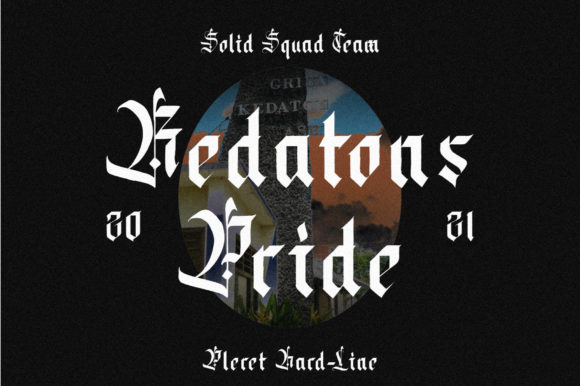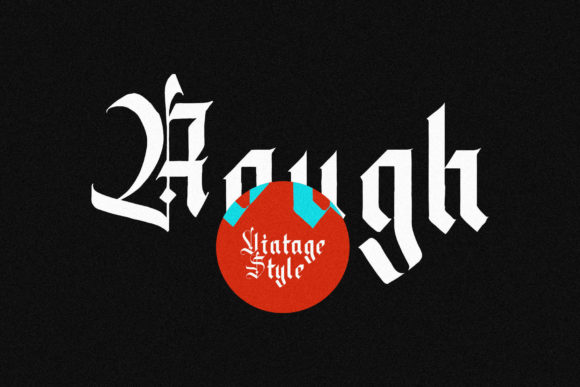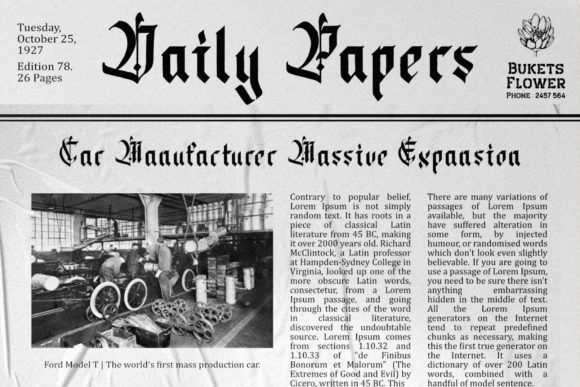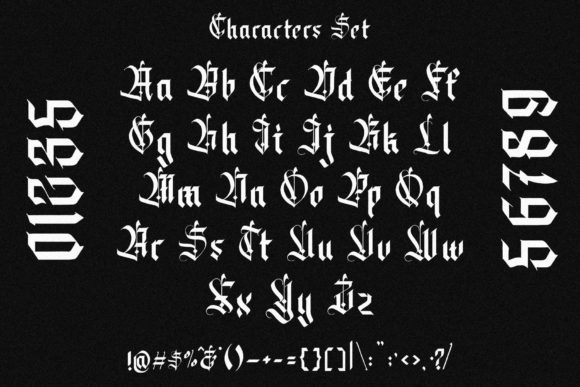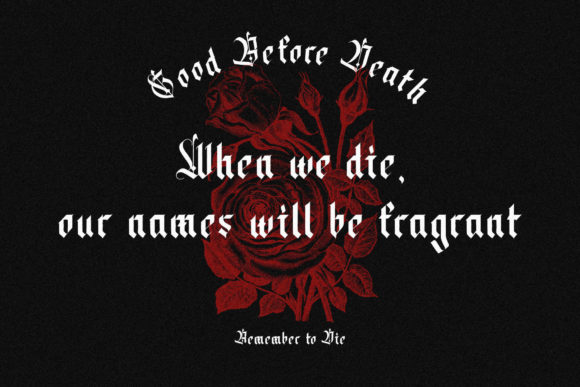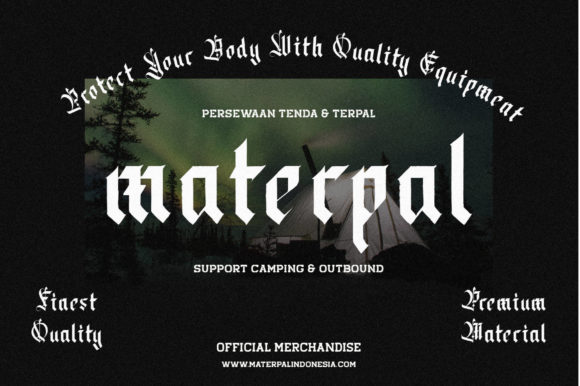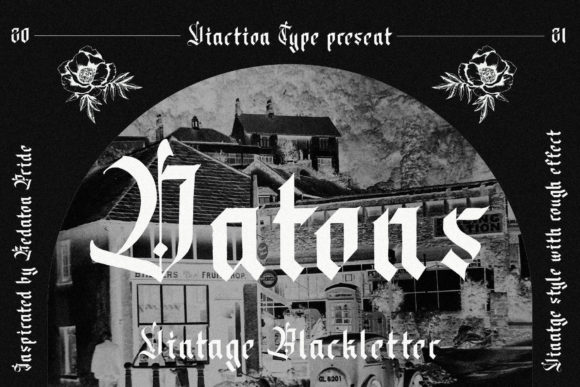
Introducing Datons Font: The Ultimate Victorian Blackletter Font for Designers and Crafters
Are you tired of using the same old fonts for your designs? Do you want to add a touch of elegance and sophistication to your projects? Look no further than Datons Font, a cool, bold, and classy Victorian blackletter font that’s perfect for a wide range of design applications.
What is Datons Font?
Datons Font is a stunning Victorian blackletter font that’s inspired by the ornate and intricate designs of the Victorian era. With its bold and dramatic lines, Datons Font is sure to make a statement in any design project. Whether you’re looking to create a logo, branding materials, invitations, stationery, wedding designs, or social media posts, Datons Font is the perfect choice.
Key Features of Datons Font
- Cool and Bold Design: Datons Font features a unique and striking design that’s sure to grab attention. Its bold lines and intricate details make it perfect for creating dramatic and eye-catching designs.
- Victorian Inspiration: Datons Font is inspired by the ornate and elegant designs of the Victorian era, making it perfect for designers and crafters who love vintage and classic styles.
- Classy and Elegant: Datons Font has a sophisticated and refined look that’s perfect for high-end designs, such as luxury branding, wedding designs, and formal invitations.
- Versatile: Datons Font can be used for a wide range of design applications, including logos, branding, invitations, stationery, wedding designs, social media posts, and more.
Why Choose Datons Font?
With so many fonts available, why choose Datons Font? Here are just a few reasons why designers and crafters love Datons Font:
- Unique and Distinctive: Datons Font is a one-of-a-kind font that’s sure to make your designs stand out from the crowd.
- Elegant and Sophisticated: Datons Font has a refined and elegant look that’s perfect for high-end designs.
- High-Quality: Datons Font is a high-quality font that’s designed to produce crisp and clear results, even at small sizes.
How to Use Datons Font
- Use it for Headings and Titles: Datons Font is perfect for headings and titles, where its bold and dramatic lines can really make an impact.
- Experiment with Different Sizes and Colors: Datons Font looks great at a wide range of sizes and colors, so don’t be afraid to experiment and find the perfect combination for your design.
- Pair it with Other Fonts: Datons Font can be paired with other fonts to create a unique and interesting look. Try pairing it with a simple sans-serif font for a striking contrast.
Design Ideas Using Datons Font
Datons Font is a versatile font that can be used for a wide range of design projects. Here are a few ideas to get you started:
- Logos and Branding: Datons Font is perfect for creating logos and branding materials that need to make a bold statement.
- Invitations and Stationery: Datons Font is a great choice for invitations, stationery, and other paper goods, where its elegant and sophisticated look can really shine.
- Wedding Designs: Datons Font is a popular choice for wedding designs, including wedding invitations, programs, and decorations.
- Social Media Posts: Datons Font can be used to create eye-catching social media posts that really stand out.